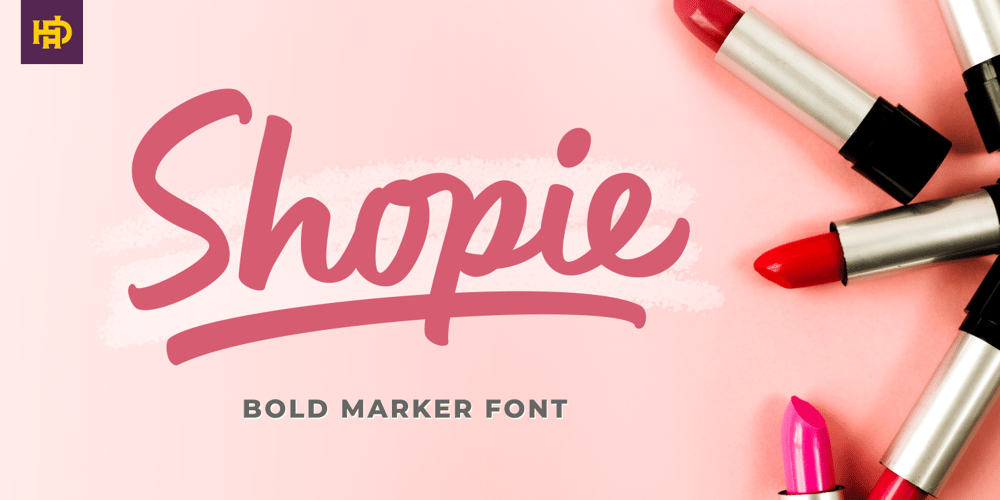
Shopie Font Family was designed by Hendra Pratama and published by Hendra Pratama. Shopie contains 1 styles and family package options. Shopie is a handmade script made with a marker pen. It is useful for a variety projects such as quotes, book covers, t-shirt designs, magazine titles and much more.Features: 370 Glyphs Uppercase Lowercase Symbols & Punctuation Support more than 62 Languages Support OpenType Features Support PUA Unicode